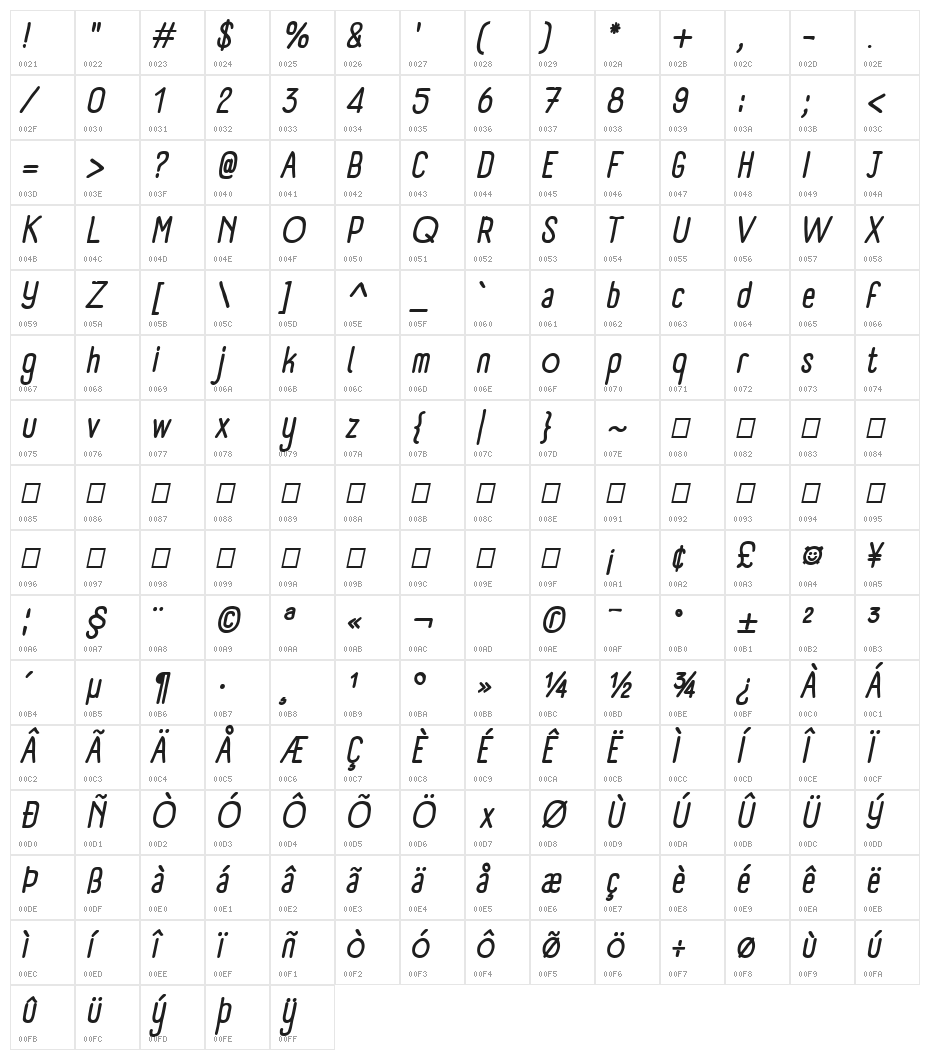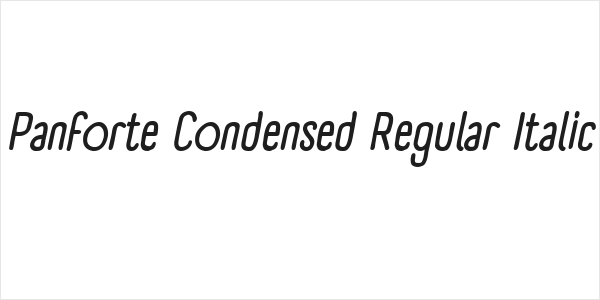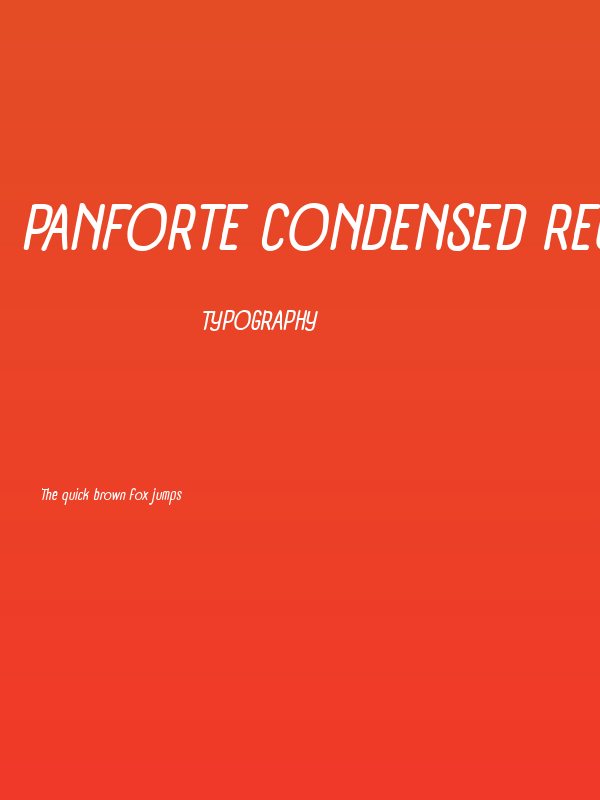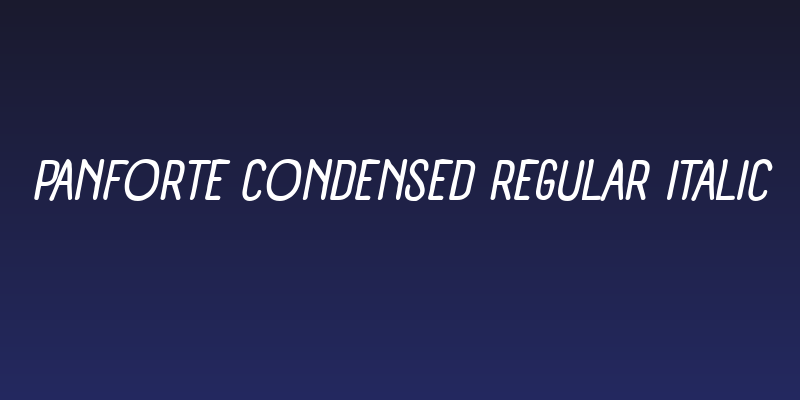
Panforte Condensed Regular Italic Font
Panforte Condensed Regular Italic Description
This font features a condensed and italicized style, offering a sleek and modern appearance. The characters are slightly slanted, giving a sense of movement and dynamism. The strokes are consistent in width, providing a uniform look across all letters and numbers. The uppercase and lowercase letters maintain a harmonious balance, while the numerals are clear and easily distinguishable. Special characters are well-integrated, ensuring versatility in various applications. The overall design is clean and legible, making it suitable for both digital and print media.
| Use Case | Headlines, Logos, Advertising |
| Proposed Projects | Ideal for branding, advertising, and editorial design projects where a modern and dynamic look is desired. |